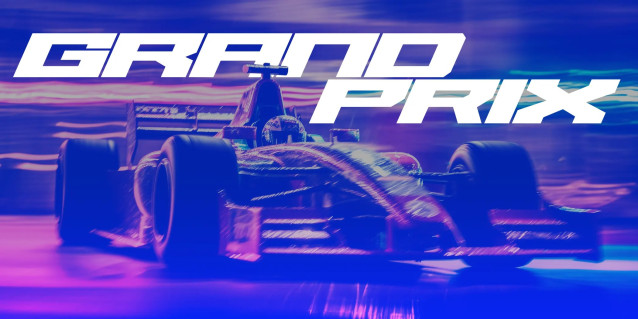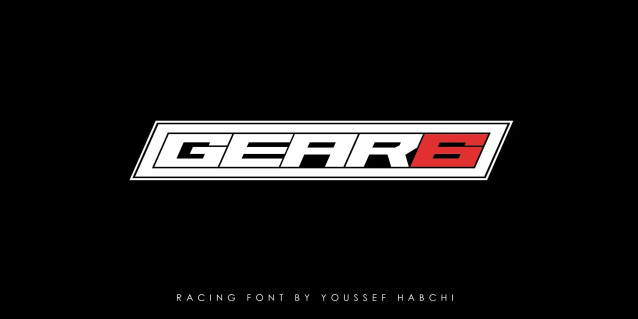
Gear6 Display Font
Gear6 Display Font a strong, confident and powerful typeface designed to suit sports logos, club branding, apparel applications, labels and more.